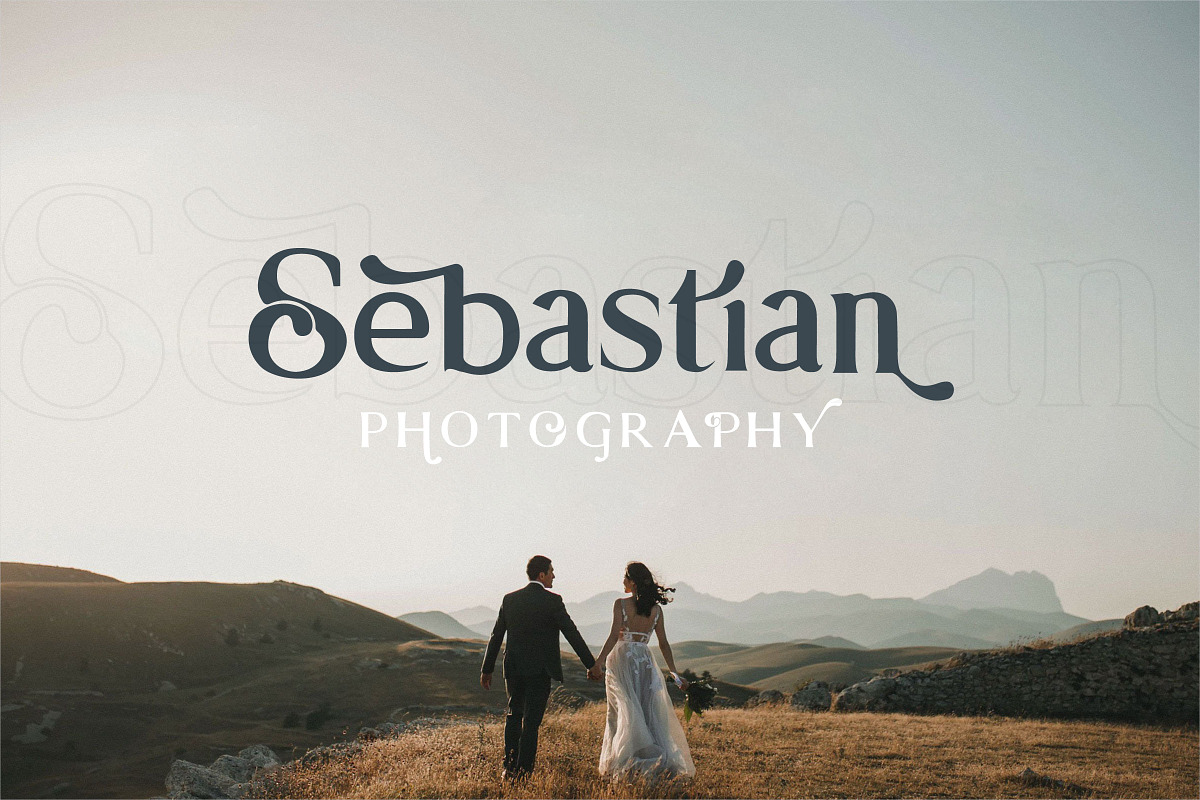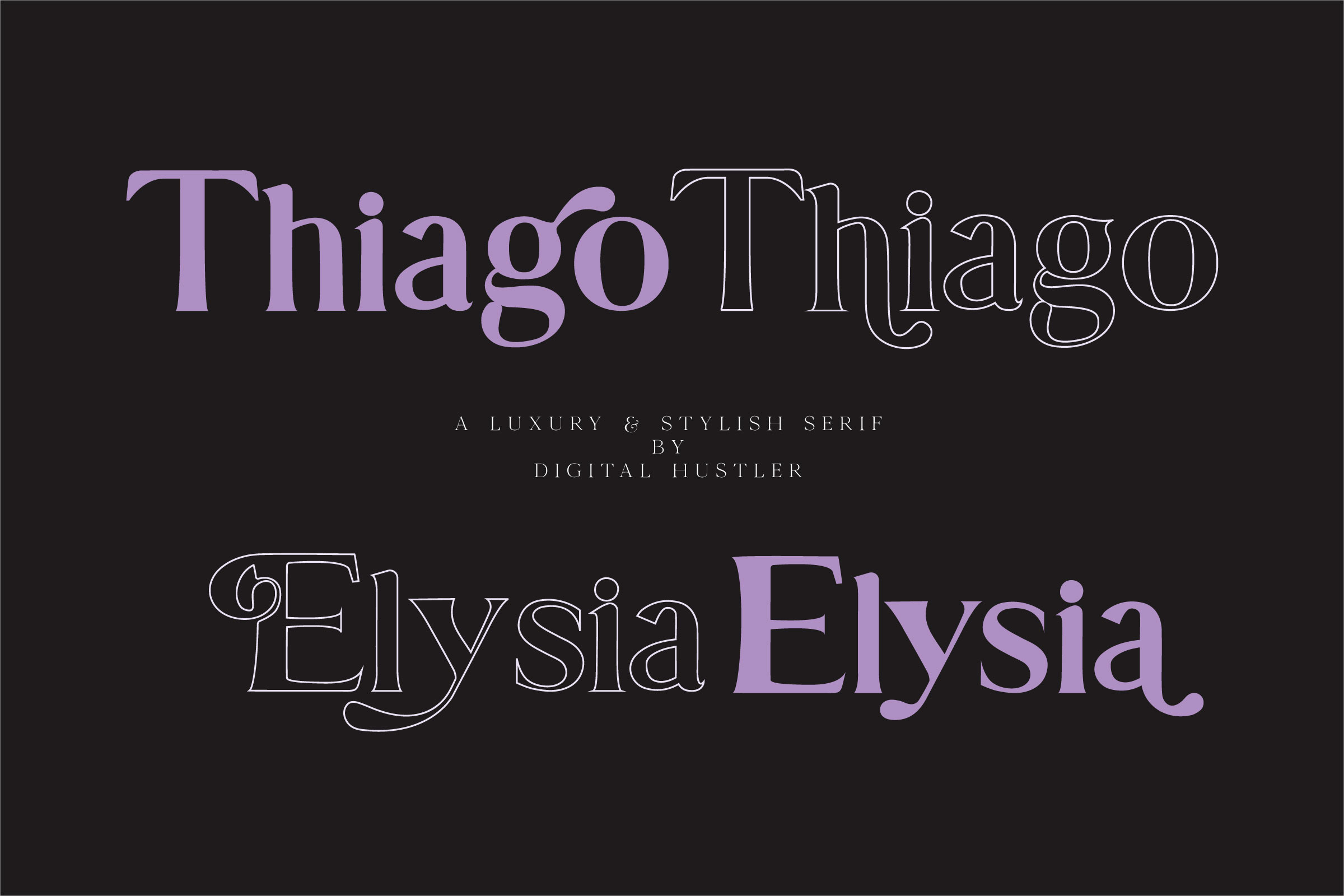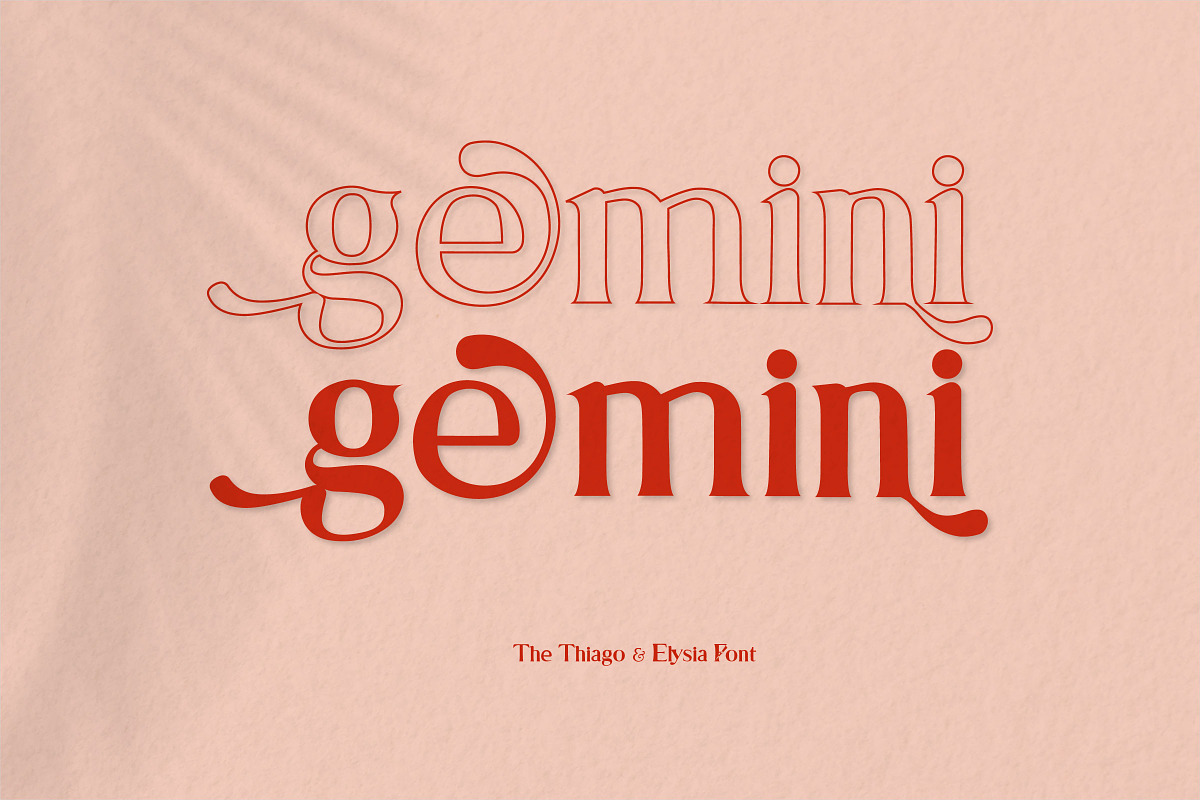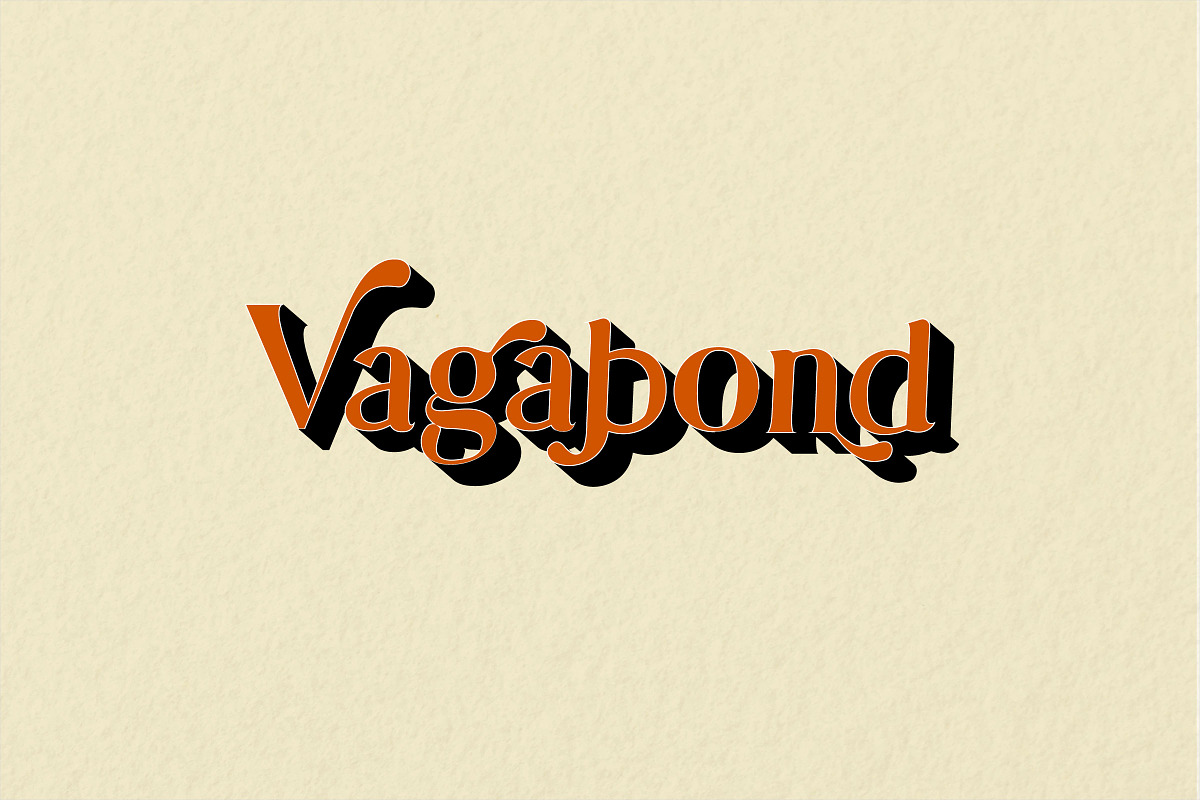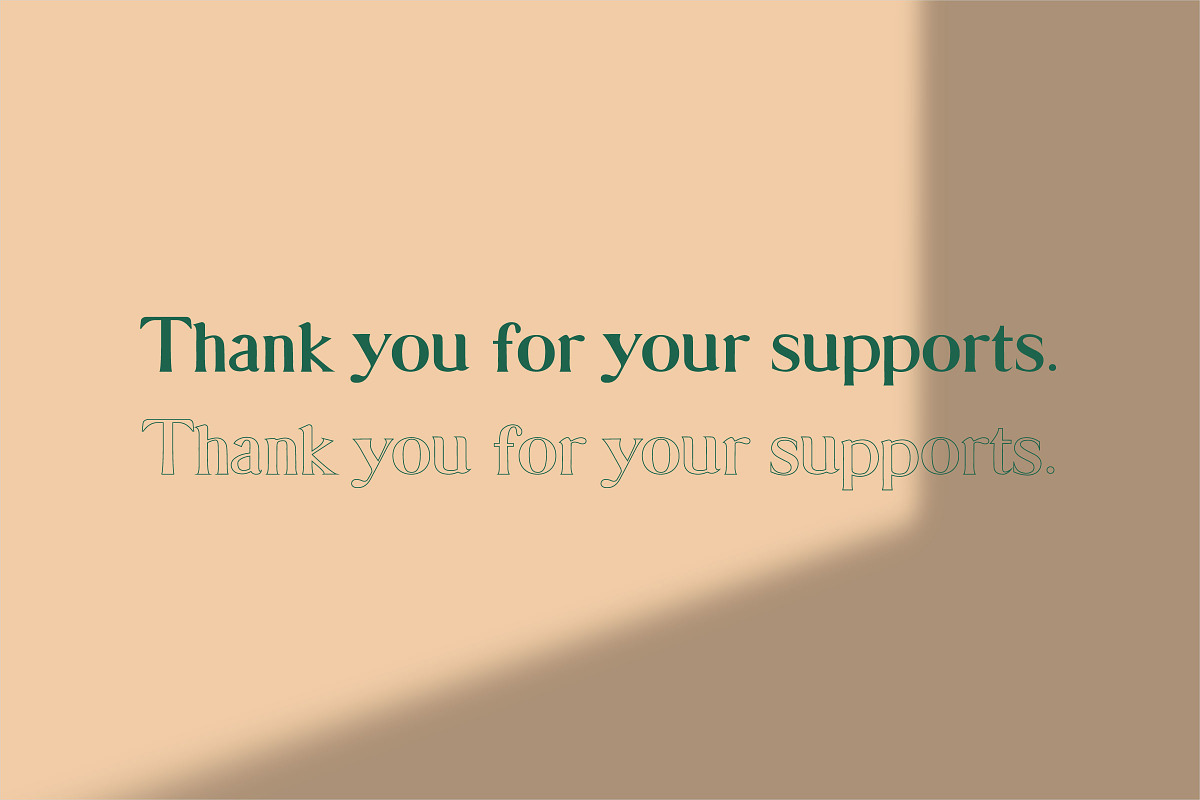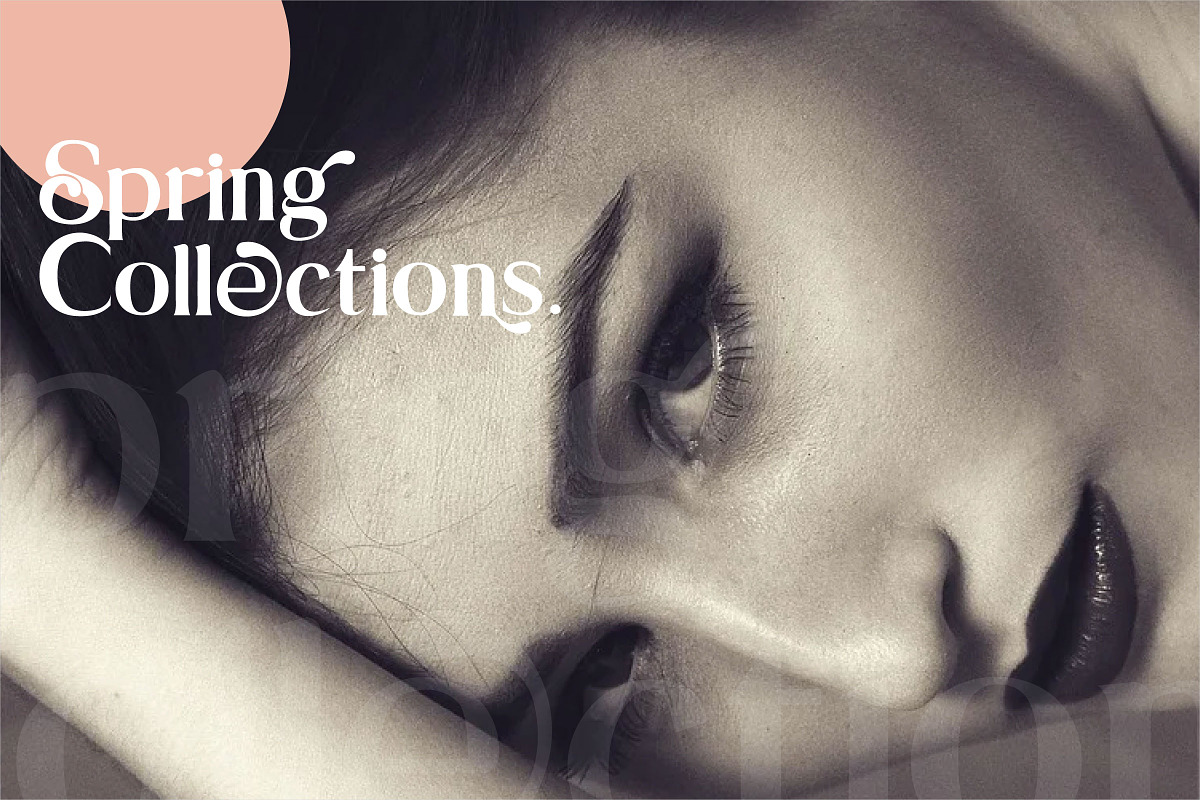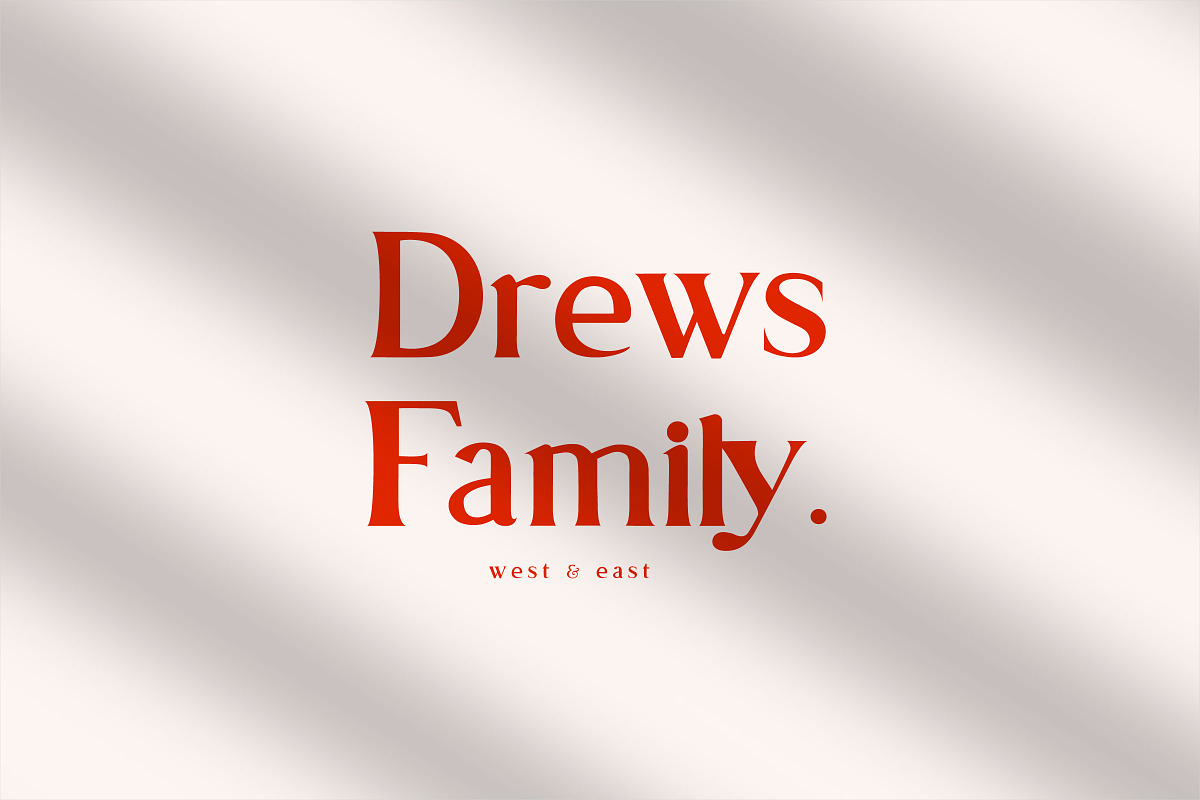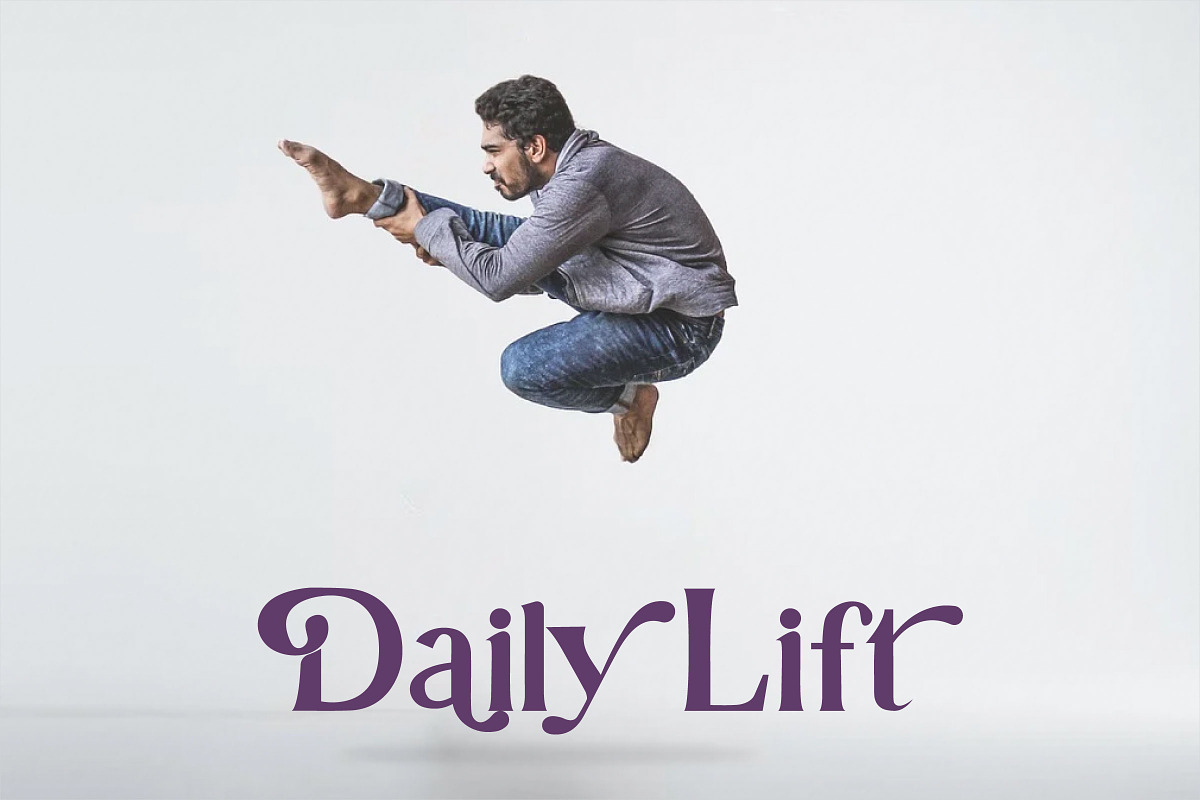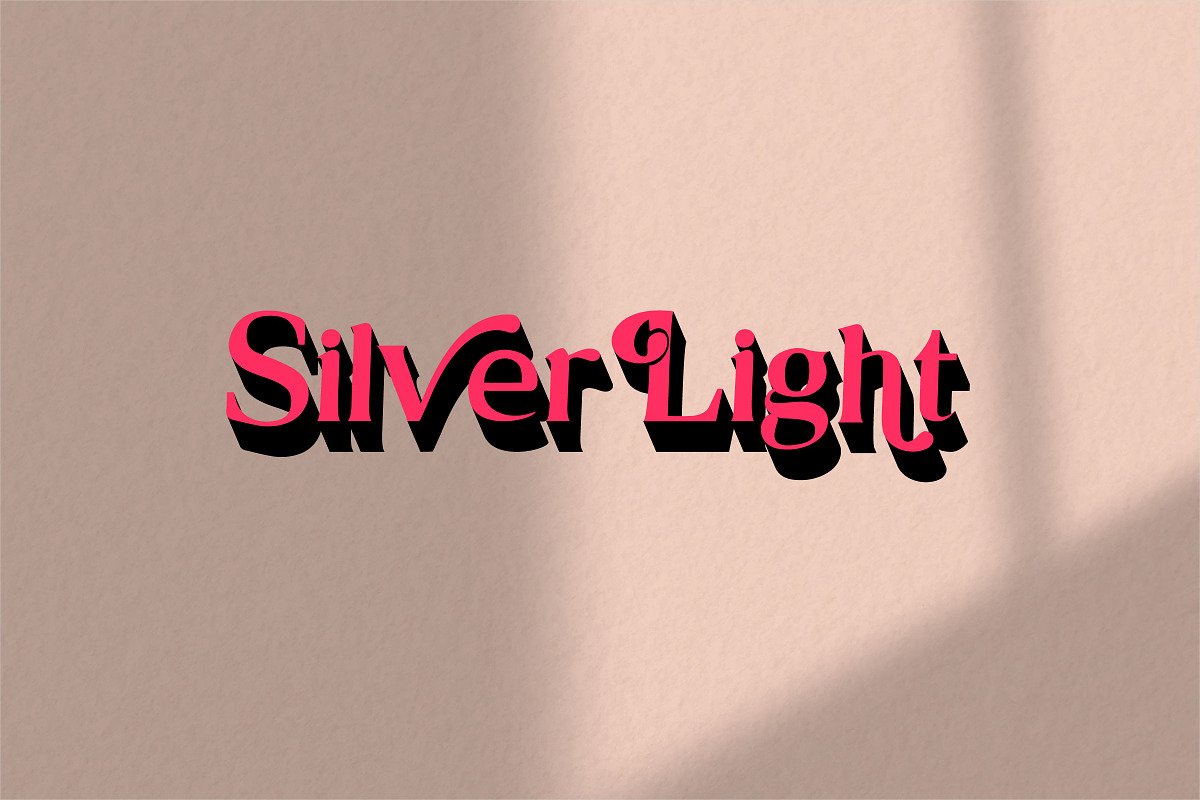
Thiago & Elysia Font
Thiago Elysia is a creative, retro-styled font duo ideal for branding, logos, display, and more! This typeface comes in two very complimentary styles, Solid and Outline, with lots of interesting alternative glyphs. Use both fonts together to create eye catching typography, or use them separately for logos, poster layouts, and more.